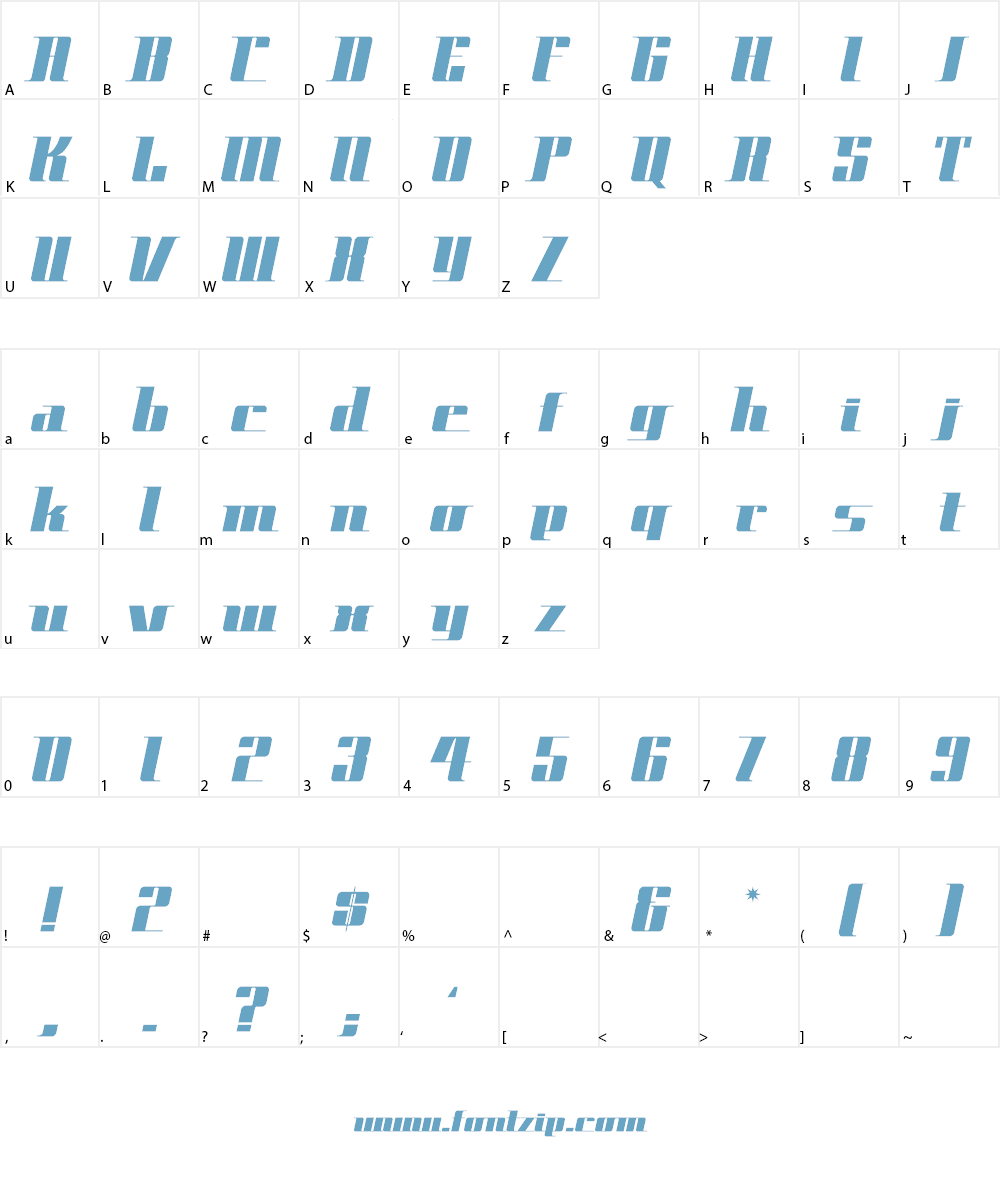
Here’s an offering inspired by an odd font called Cili that I found on a Japanese website. It reminded me of the futuristic lettering used in the comic strip Buck Rogers from the 30s, hence the name.